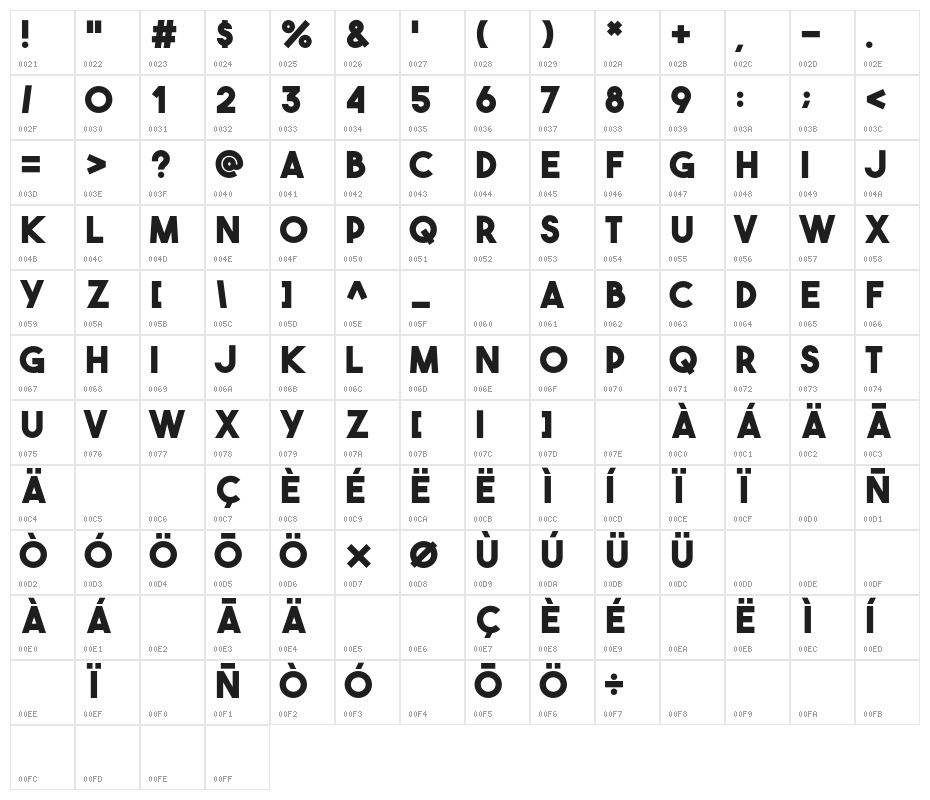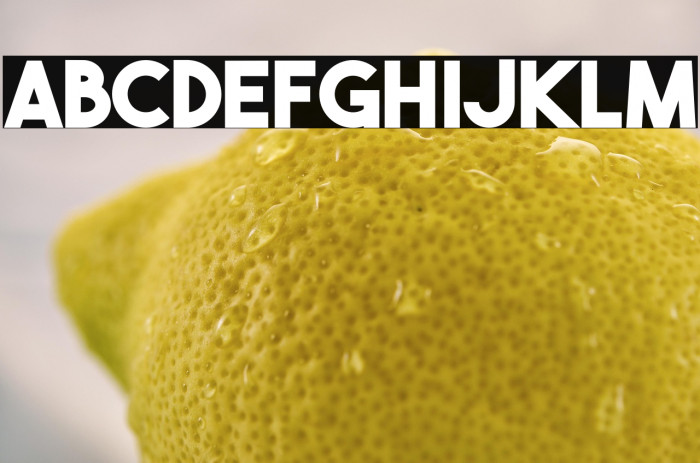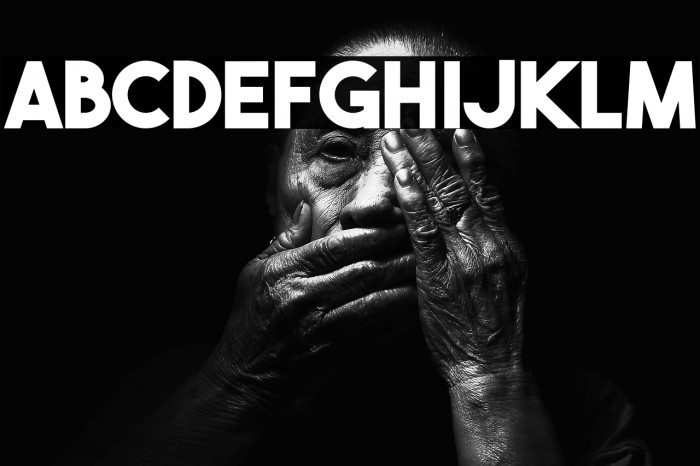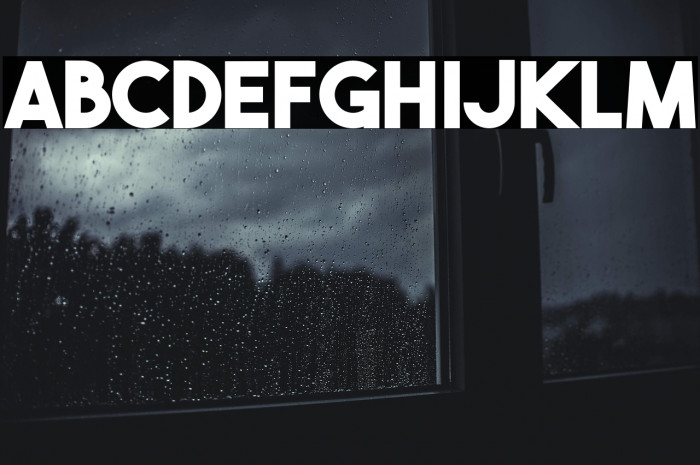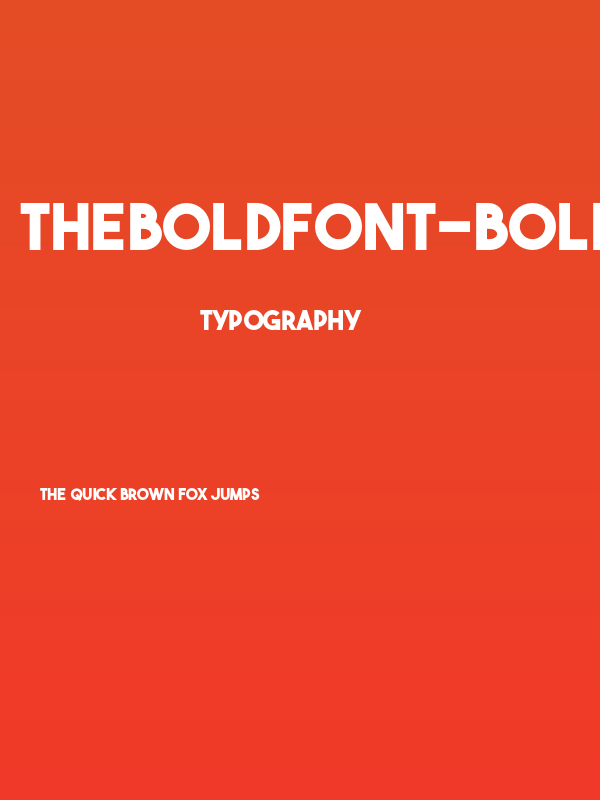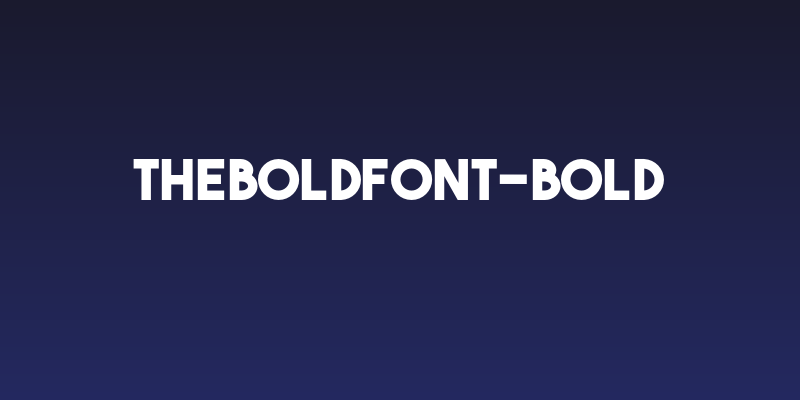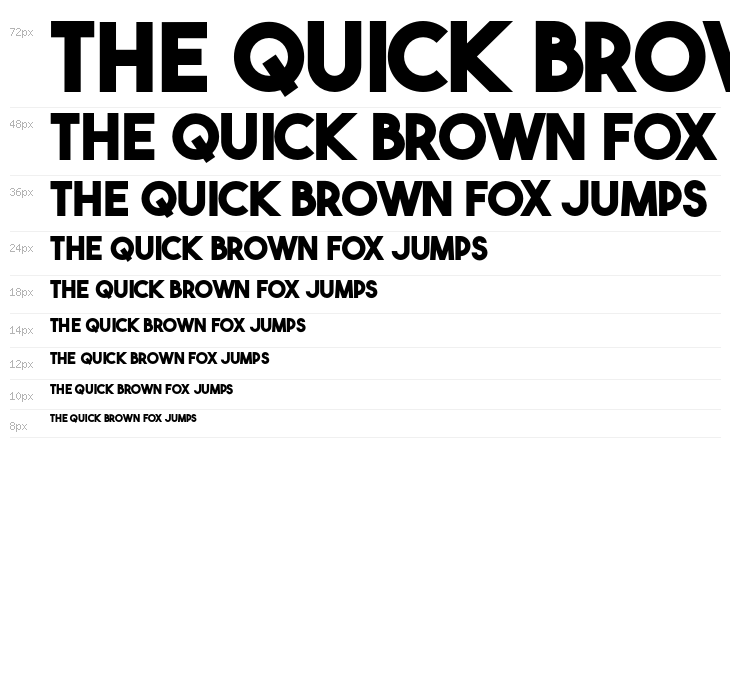
TheBoldFont-Bold Font
TheBoldFont-Bold Description
This font is characterized by its bold and impactful appearance, featuring thick strokes and a strong presence. The letters are uniformly wide, with a geometric and modern design that emphasizes clarity and readability. The uppercase and lowercase letters maintain a consistent style, with rounded edges that add a touch of softness to the otherwise robust structure. The numbers and special characters follow the same bold aesthetic, ensuring a cohesive look across all elements. This font is ideal for making a statement, with its high contrast and solid form making it perfect for attention-grabbing headlines or branding materials.